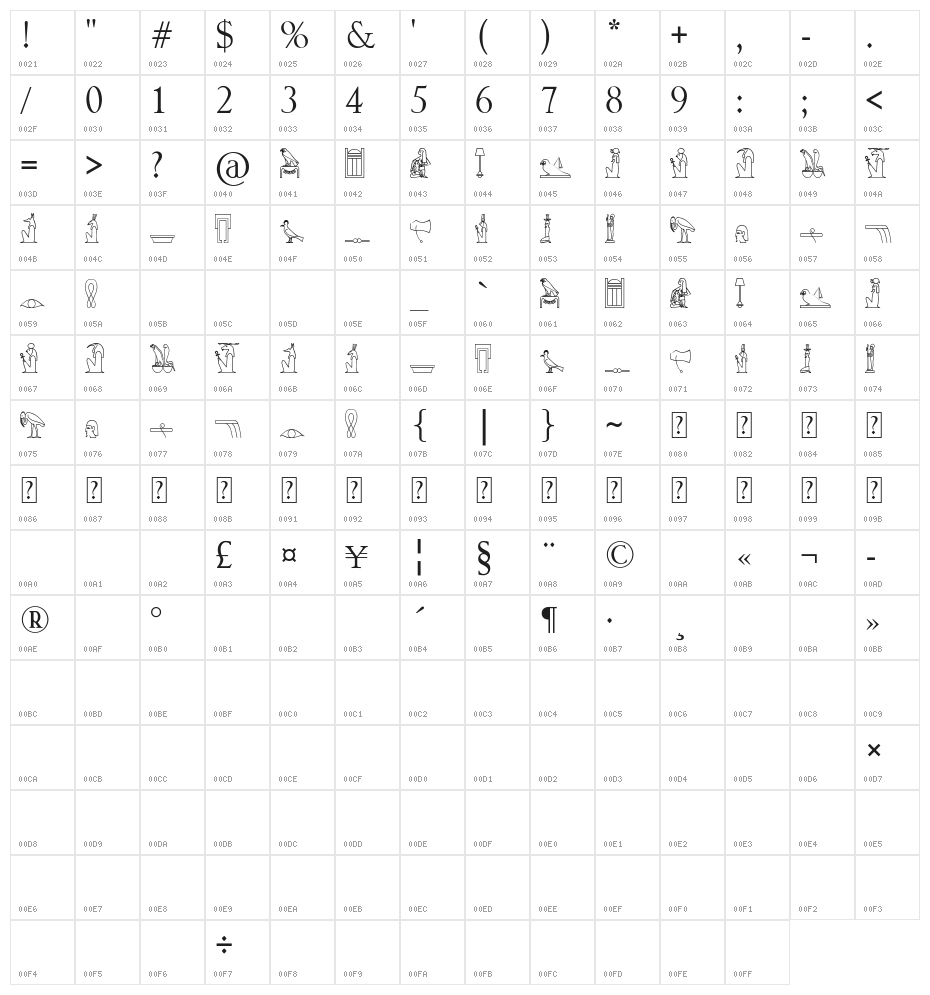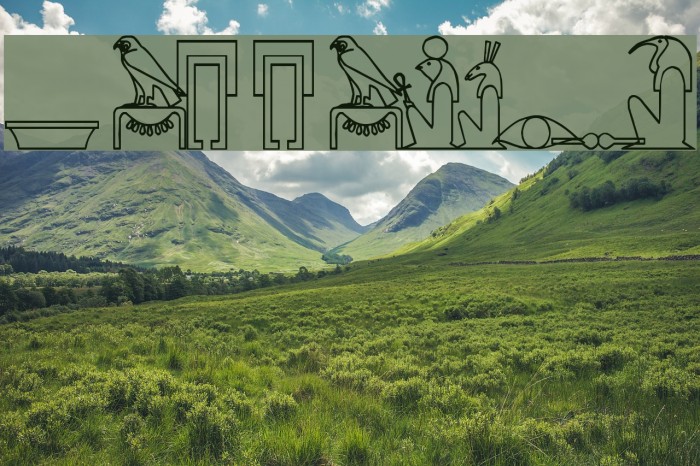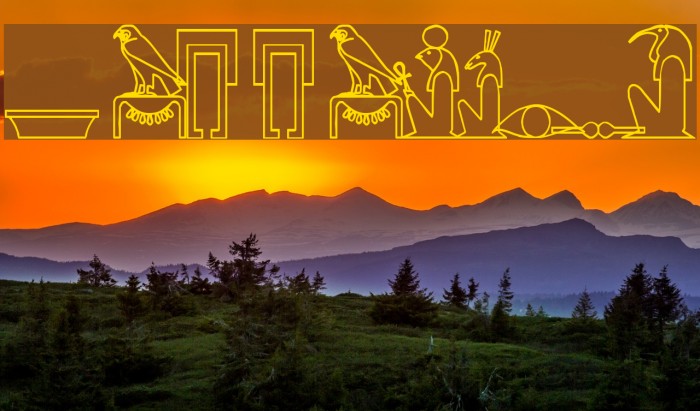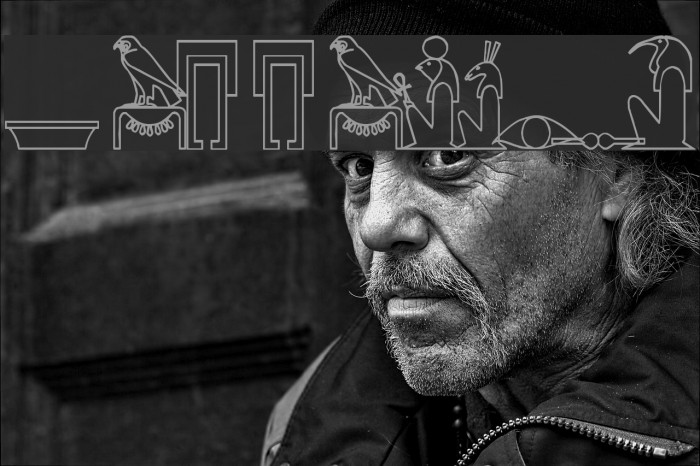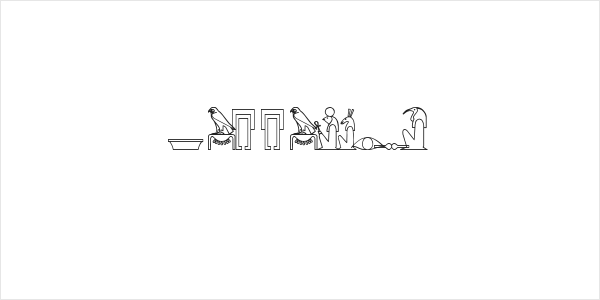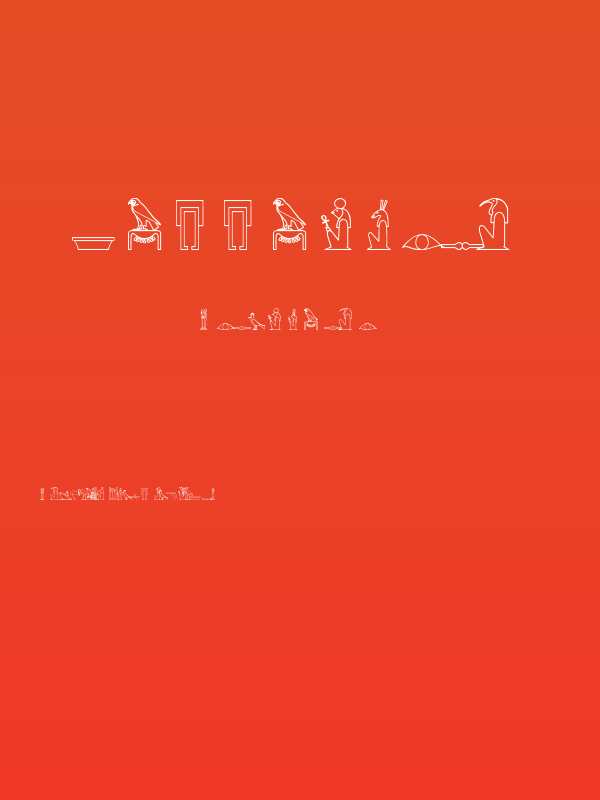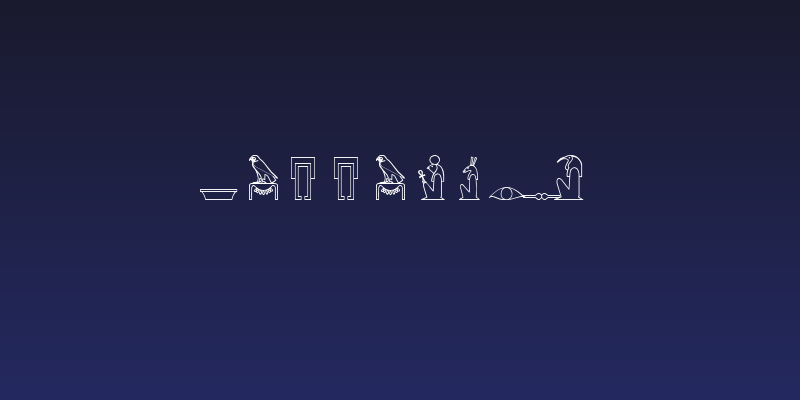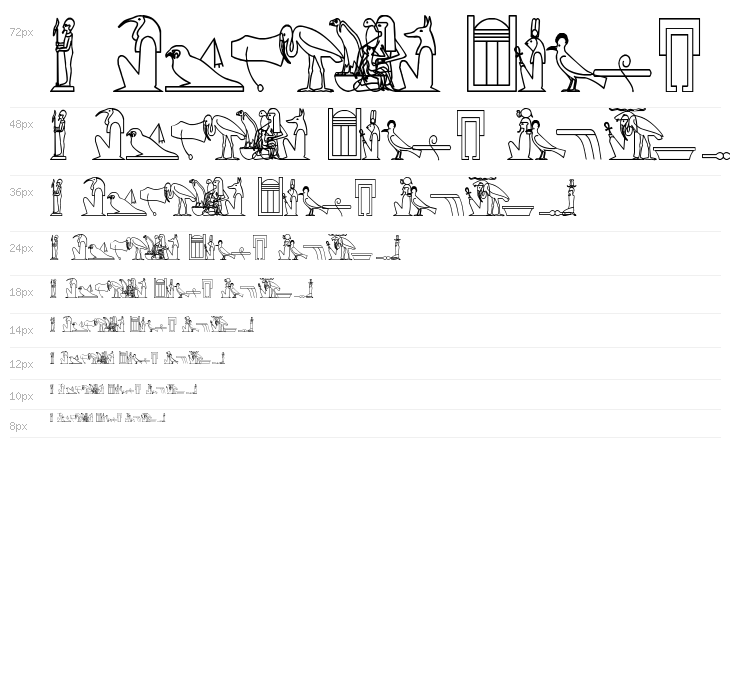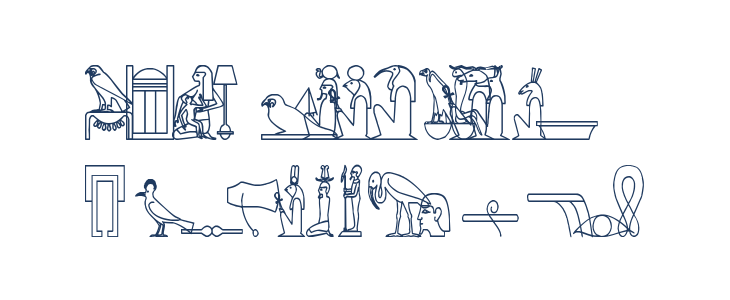
mannaglyph Font
mannaglyph Description
This font is a unique blend of ancient Egyptian hieroglyphic symbols and modern typographic elements. Each character is intricately designed to resemble traditional hieroglyphs, providing a historical and artistic feel. The numerals and special characters maintain a classic serif style, offering a stark contrast to the decorative and illustrative nature of the letters. The overall design is highly decorative, making it ideal for projects that require a touch of antiquity and artistic flair. The font's detailed and complex nature suggests a high level of craftsmanship, suitable for creative and thematic designs.
Use CaseLogos, Posters, Thematic Designs
Proposed ProjectsIdeal for historical themed projects, artistic designs, educational materials on ancient cultures, and decorative posters.